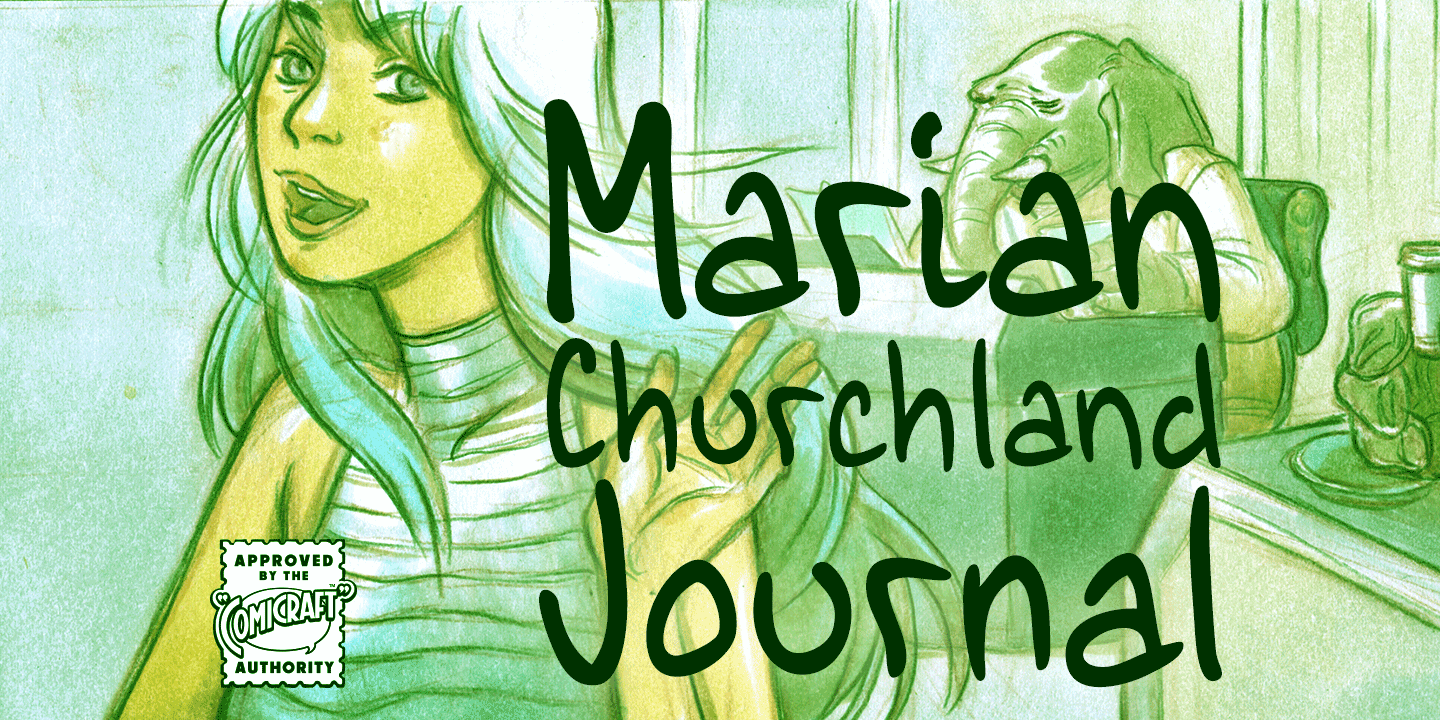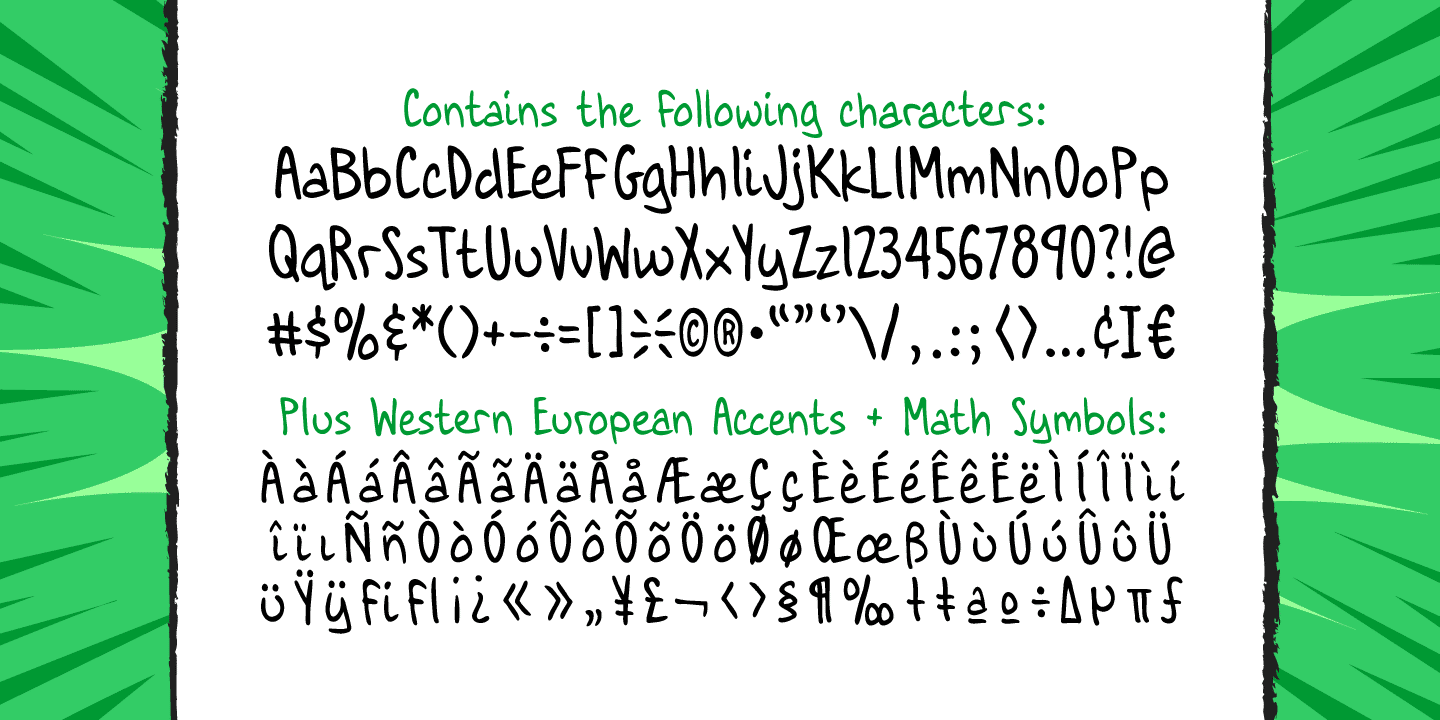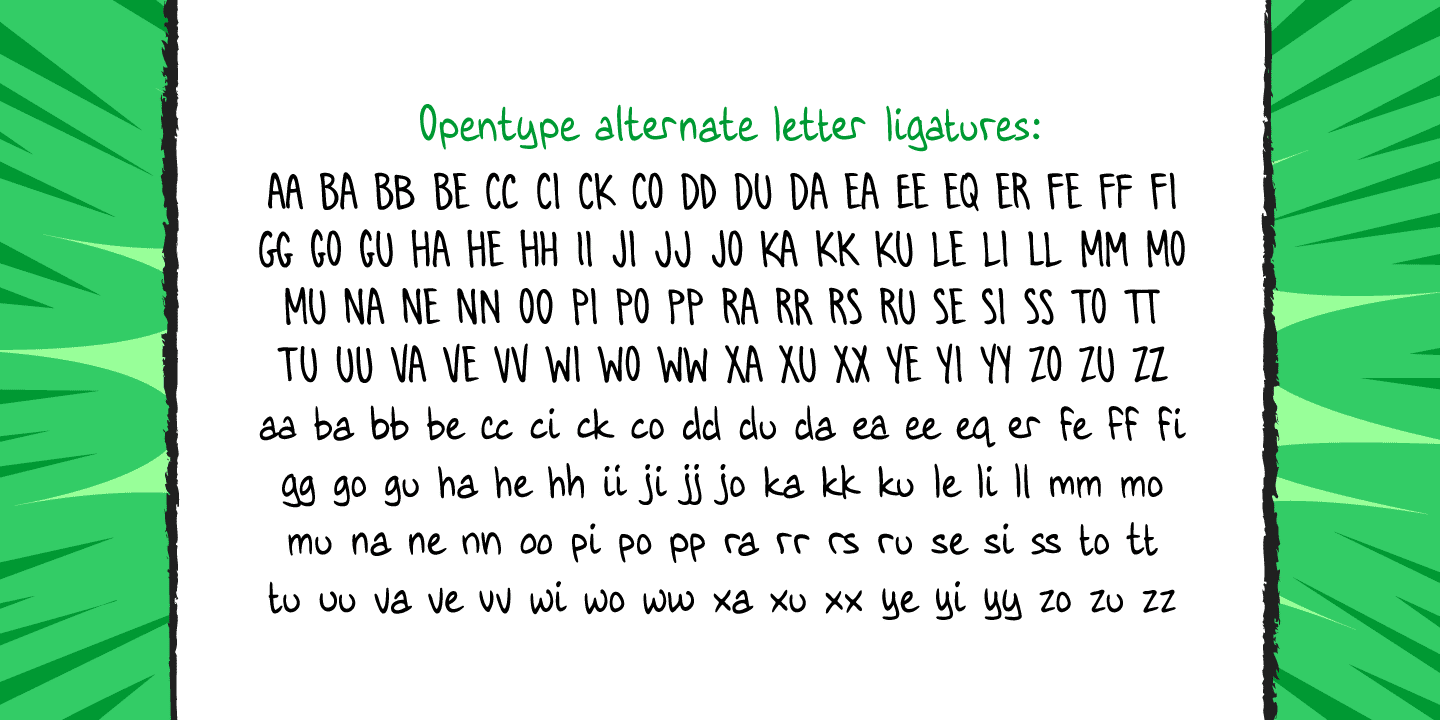
Marian Churchland Journal
Font Family by Comicraft Fonts
Tall, thin and elegant, Marian Churchland's font is very much like her... and is now available from those awfully nice chaps at Comicraft to allow you to pretend that you are too!
Artwork by Marian Churchland from Elephantmen #20